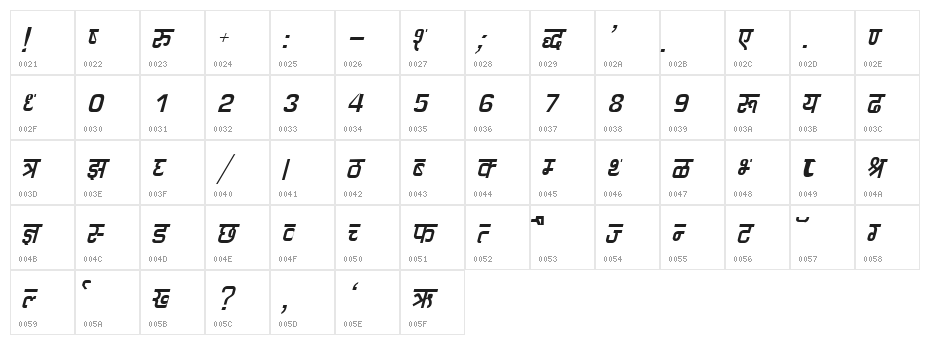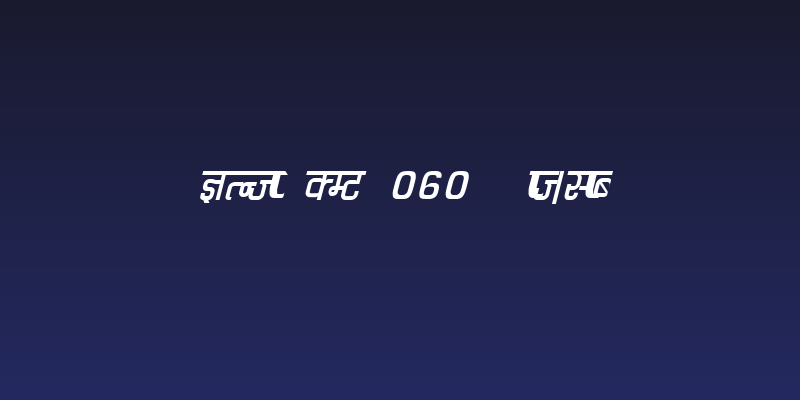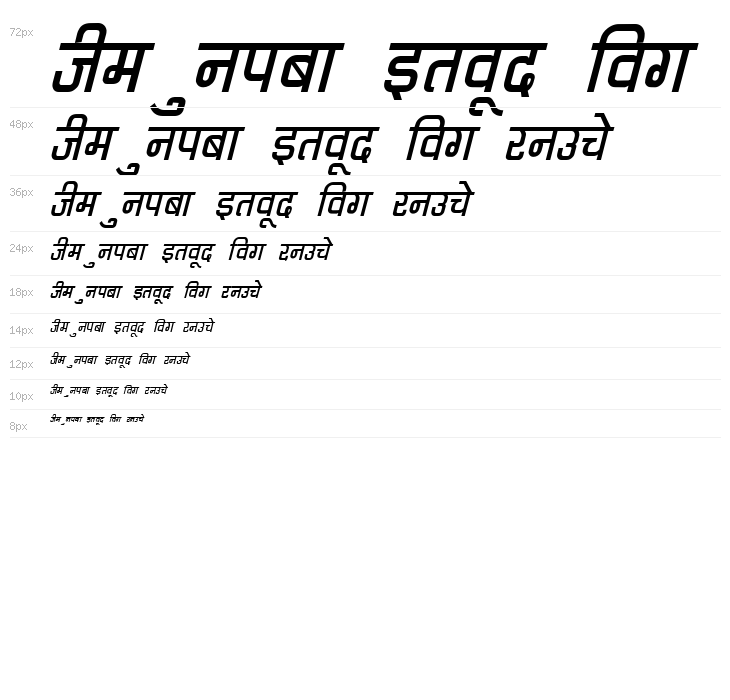
Kruti Dev 060 Italic Font
Kruti Dev 060 Italic Description
This font is a stylized Devanagari script with an italic slant, giving it a dynamic and modern appearance. The characters are bold and slightly condensed, maintaining legibility while adding a touch of elegance. The strokes are consistent in weight, providing a uniform look across all characters. The numerals and special characters are designed to match the script's style, ensuring a cohesive visual experience. This font is suitable for use in various digital and print media where a contemporary yet traditional feel is desired.